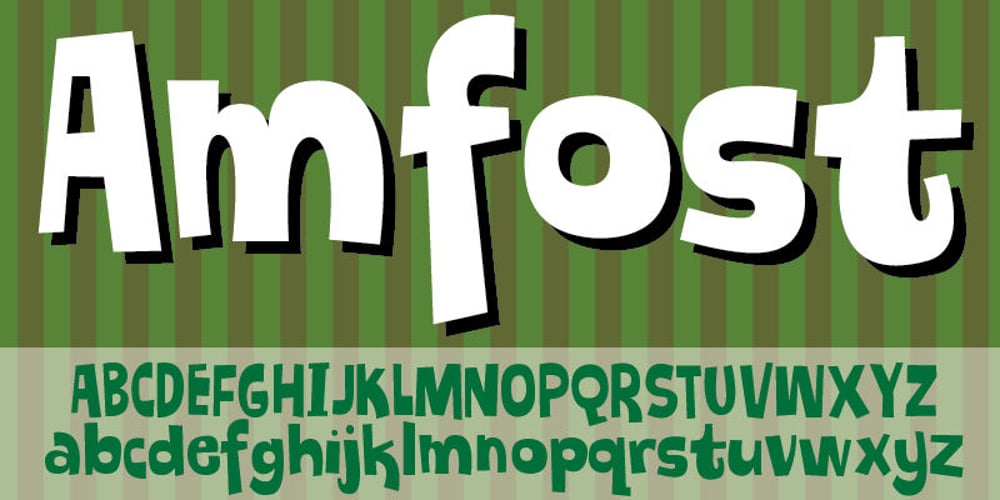
Amfost
Amfost font
Amfost Font Family was designed by Jakob Fischer and published by PizzaDude.dk. Amfost contains 1 styles and family package options. A comic font with that casual and funky pizzadude-look!